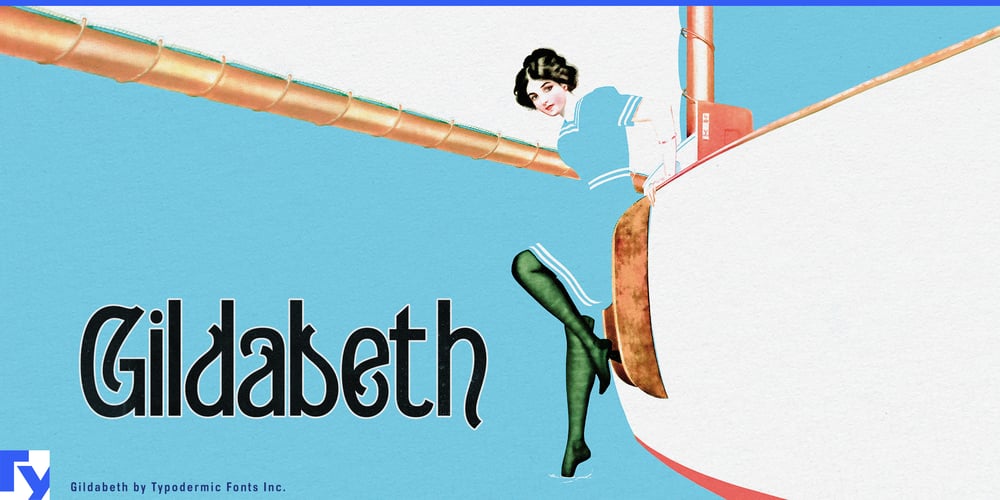
Gildabeth Font Family was designed by Ray Larabie and published by Typodermic. Gildabeth contains 14 styles and family package options. Prepare to shatter the shackles of minimalist monotony with Gildabeth, a typeface that doesn’t just push the envelope—it sets it ablaze with Edwardian extravagance. This isn’t your grandmother’s sans-serif; it’s a typographic rebellion against years of oppressive simplicity, a maximalist manifesto written in letterforms.Gildabeth doesn’t whisper—it roars with the opulence of a bygone era. Its narrow display character and rugged stroke modulation are a defiant fist raised against the tyranny of sleek, soulless designs. Each glyph is a work of art, unapologetically intricate, daring you to look away—but you won’t be able to. Available in six weights, from whisper-thin to audaciously bold, Gildabeth offers a spectrum of expression that puts minimalist fonts to shame. Its obliques don’t just slant; they strut, infusing your designs with a swagger that screams confidence. This is a typeface for those who understand that more isn’t just more—it’s everything.Gildabeth isn’t content to exist in a single language. It crosses borders with the flamboyance of an Edwardian explorer, supporting a vast array of Latin-based European writing systems. From Afaan Oromo to Zuni, it ensures your maximalist message maintains its ornate charm, a linguistic peacock strutting across cultural boundaries. Choose Gildabeth when you’re tired of typography that whispers. This is a font that demands attention, perfect for designs that aim to transport viewers to a world where every detail is a celebration. Let Gildabeth be the voice of your most audacious ideas, transforming ordinary text into extraordinary visual feasts that overwhelm the senses—in the best possible way.In a world drowning in minimalist conformity, Gildabeth stands tall as a beacon of maximalist rebellion. It’s a portal to an age when design was an expression of unbridled creativity. Choose Gildabeth, and let your designs sing with the unrestrained joy of maximalist glory.